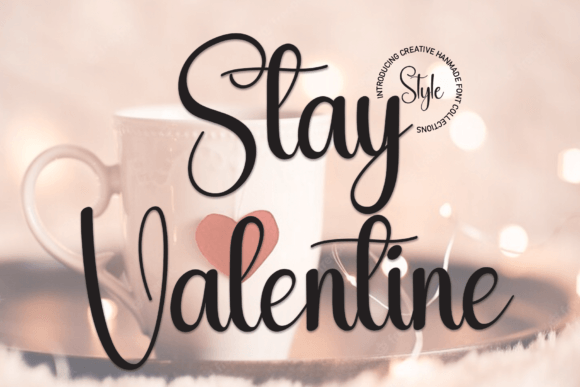
In a world craving uniqueness and self-expression, Stay Valentine emerges as a font family poised to capture hearts and redefine creativity. Designed by the visionary William Jhordy, this script font exudes a captivating charm, beckoning you to explore its endless possibilities. As a modern-day masterpiece, Stay Valentine is crafted to elevate your digital creations, leaving an unforgettable impression on your audience.
With its graceful strokes and playful personality, Stay Valentine is an invitation to let your imagination soar. Each character, meticulously crafted, dances across the screen, carrying a story waiting to be told. Whether you're designing a wedding invitation, a heartfelt card, or a captivating logo, Stay Valentine transforms your words into works of art.
Step into a world where elegance meets playfulness, where Stay Valentine's enchanting curves weave a spellbinding narrative. Its versatility knows no bounds, making it the perfect companion for a multitude of projects. From whimsical branding designs to heartfelt personal notes, Stay Valentine effortlessly adapts its style to match your vision.
Unleash your inner artist and embrace the magic of Stay Valentine. Let your imagination take flight as you explore the vast creative landscape that awaits you. Each letterform is a brushstroke of inspiration, guiding you towards masterpieces that resonate with your unique style.